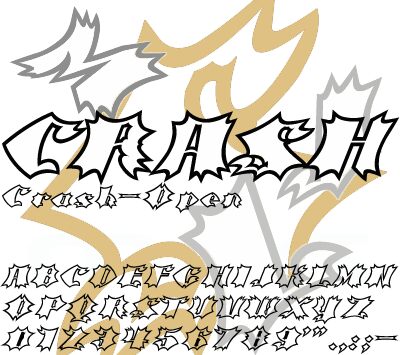
Crash Open
Crash Open font by Masato Shimojima is a free distorted outlined display typeface that looks like it’s been ripped from the pages of a wild comic panel. Each letter feels jagged, inflated, and slightly unhinged, with thick inked outlines and hollow centers that beg to be filled with color, texture, or left stark and airy. The rhythm is chaotic but still readable, giving you that loud, hand-drawn energy without losing the message in the noise.
Using Crash Open, your titles don’t just sit on the page—they lunge forward like sound effects: CRASH, BOOM, RIOT. This free font works beautifully for gig posters, comic zines, skate or streetwear branding, game titles, YouTube thumbnails, and bold event flyers. Try pairing Crash Open with a clean, narrow sans-serif for body text to keep the surrounding layout tight while this wild outline typeface does all the shouting.